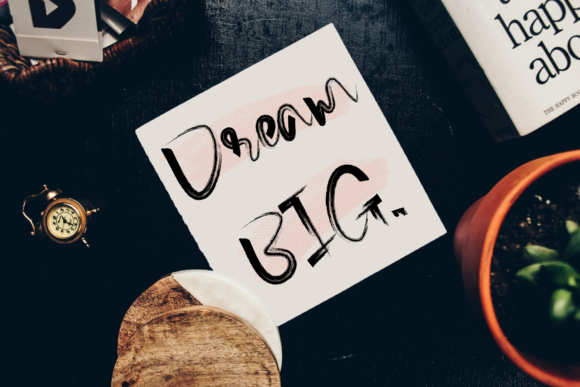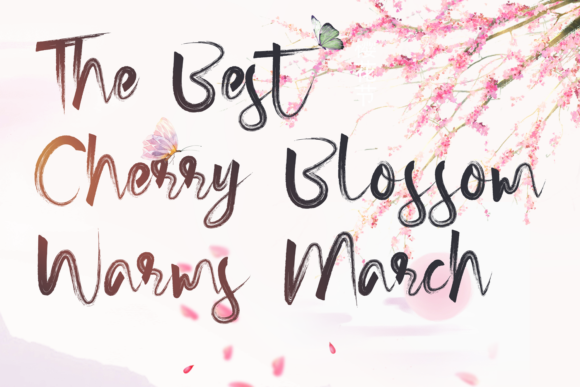
Quotes Font
db-ku.com - Script & Handwritten -- Quotes is a beautiful handwritten font, realized with the help of an outstanding brush pen. Its unique style and the well balanced characters make it the best choice whenever you want to elevate your designs. Fall in love with Quotes and add it to your favorite projects!